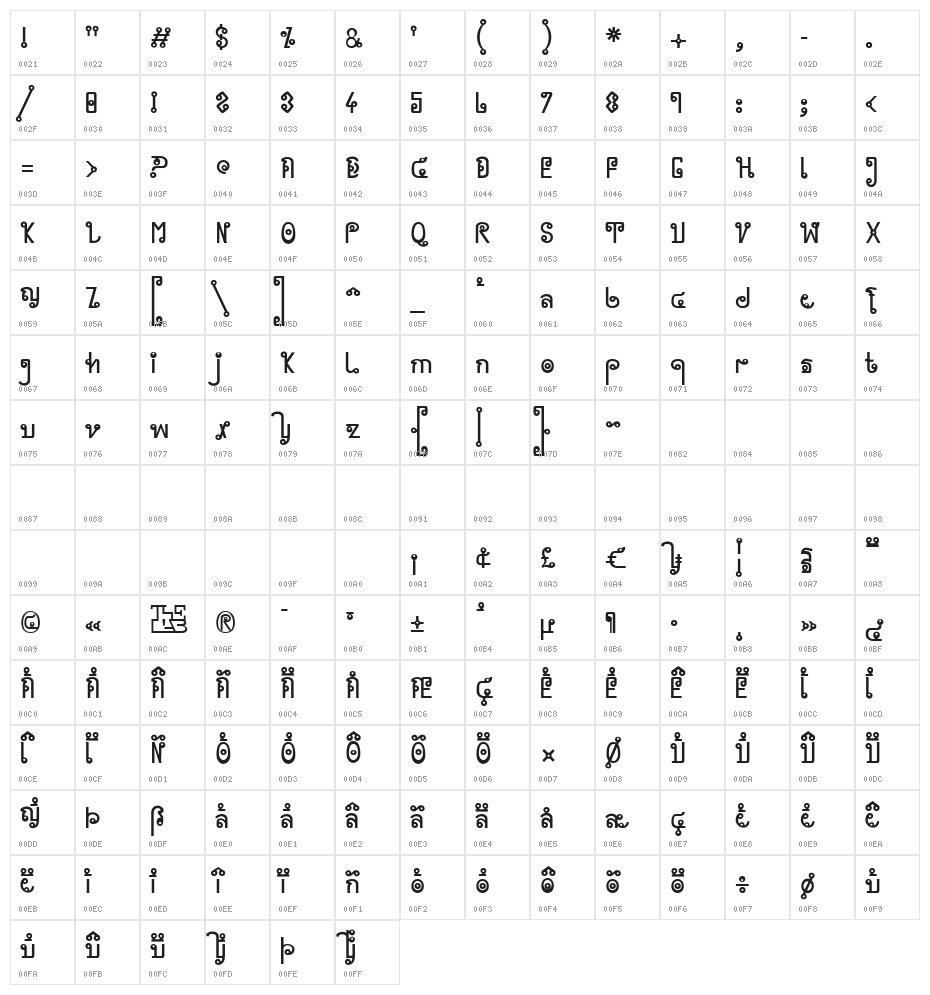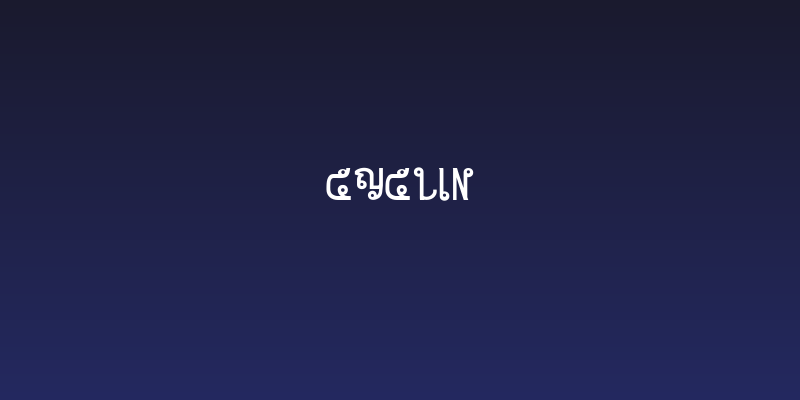
Cyclin Font
Cyclin Description
This font features a unique and playful design with a modern twist. Each character is adorned with circular embellishments, giving it a whimsical and decorative appearance. The strokes are consistent in thickness, providing a uniform look across all characters. The font maintains a balance between readability and artistic flair, making it suitable for creative projects. The uppercase and lowercase letters share a similar style, with the lowercase being slightly more compact. Numbers and special characters follow the same decorative theme, ensuring a cohesive look throughout.
| Use Case | Logos, Headlines, Posters |
| Proposed Projects | Ideal for children's books, creative posters, playful branding, and artistic invitations. |